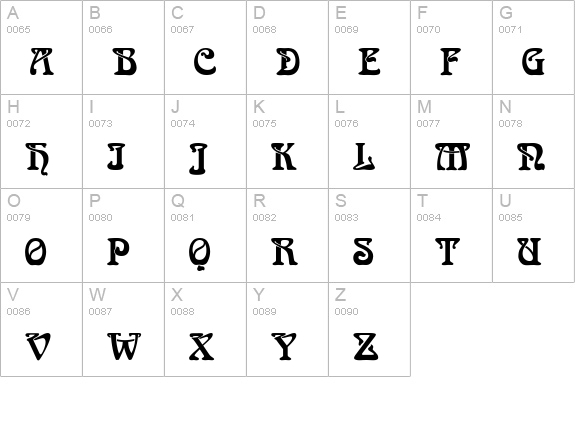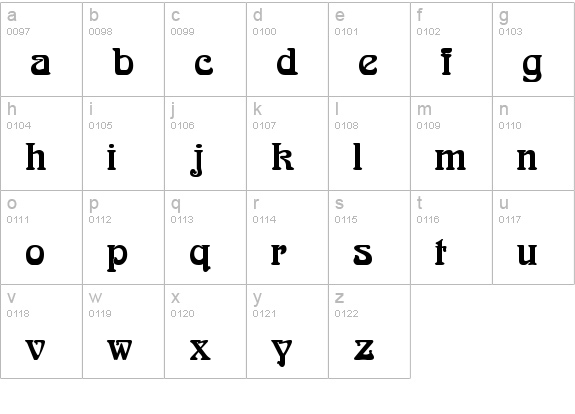
Arnold Boecklin is a beautifully crafted font that exudes elegance and sophistication. With its unique and intricate design, this font is perfect for adding a touch of class to any project. The flowing lines and ornate details of Arnold Boecklin make it a standout choice for invitations, logos, and other creative endeavors. The best part? Arnold Boecklin is available for free download at FontsMarket.com, making it accessible to anyone looking to elevate their design work without breaking the bank. Whether you're a seasoned designer or just starting out, Arnold Boecklin is sure to impress with its timeless charm and versatility. Download this stunning font today and take your projects to the next level!